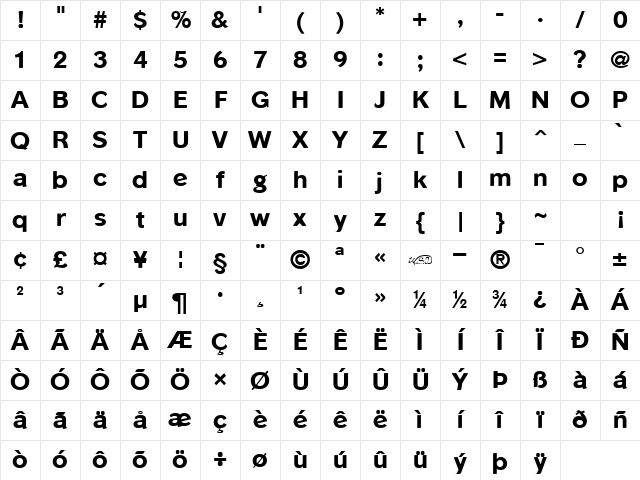
Phinster Extrabold Regular Free Font
Phinster Extrabold Regular
Phinster Extrabold Family
Complete Phinster Extrabold Regular glyph index. Displaying only characters natively supported by Phinster Extrabold Regular font.
Design Context for Phinster Extrabold
Phinster Extrabold is a composed and adaptable typeface that performs quietly and consistently across a wide range of design contexts. Its bold stroke weight gives it real presence on the page.